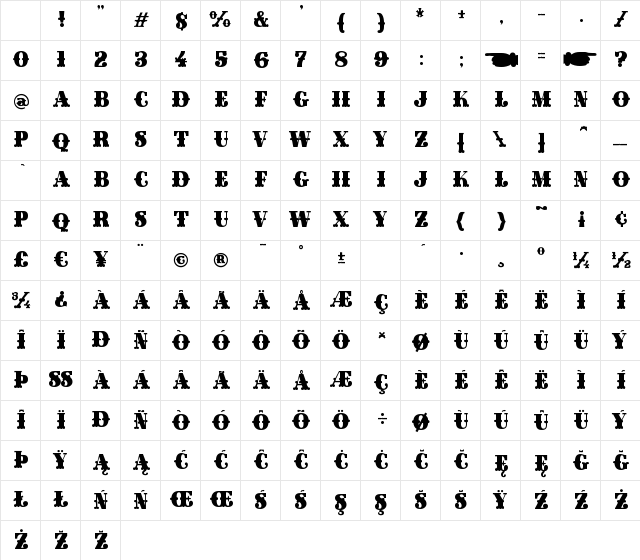
Complete Gille Classsic Fill Regular glyph index. Displaying only characters natively supported by Gille Classsic Fill Regular font.
Gille Classsic Fill is a composed and adaptable typeface that performs quietly and consistently across a wide range of design contexts.